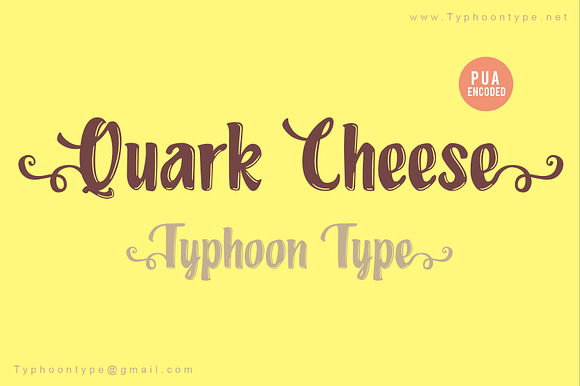
Quark Cheese font
Quark Cheese This Font perfect for logos, name tag, advertising, product packaging, clothing, social media & greeting cards.
Type ( before word to get beginning swash and Type ) after word to get the ending swash. Example : (Quark Cheese)
Why Quark Cheese font is worth a look
Quark Cheese font by TyphoonStudio fits naturally into Branding, posters, packaging, typography.